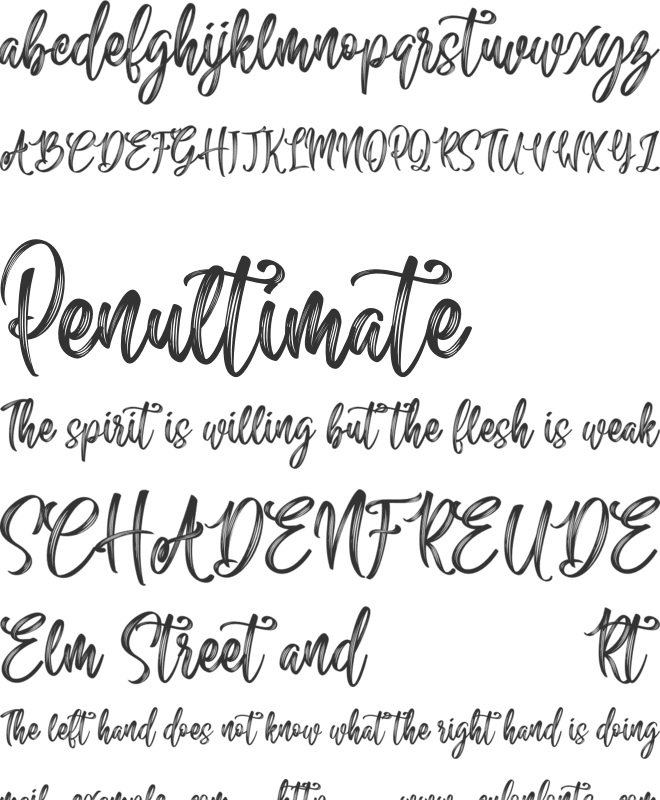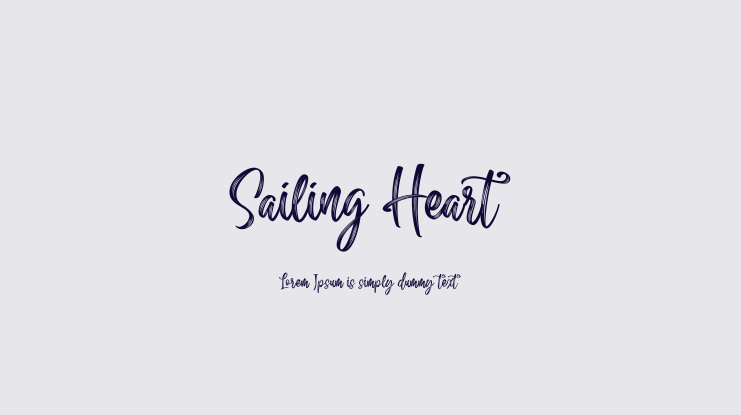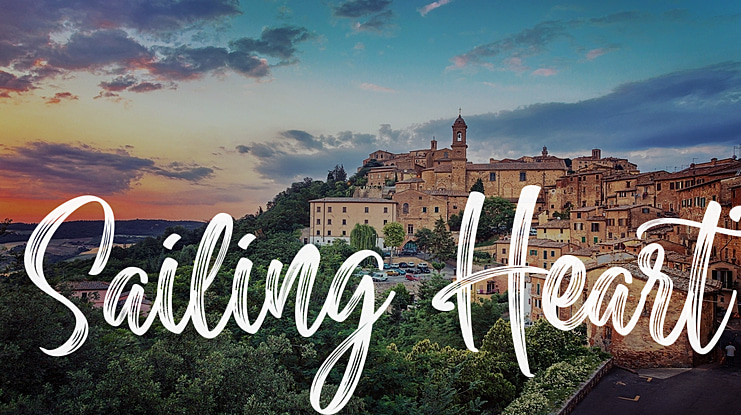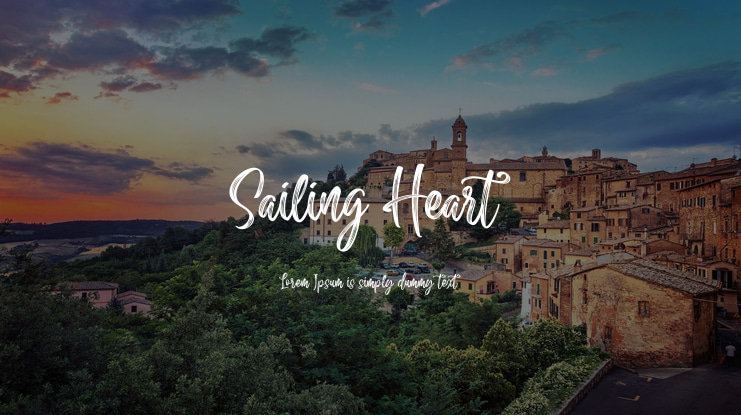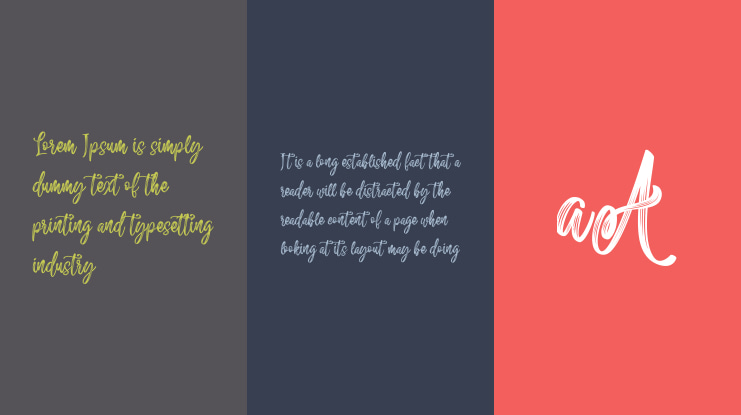
Sailing Heart Font
Donis Miftahudin
Say hello to Saling Heart Script...
Saling Heart is a beautiful script font, Made with naturally brush. Texture from the brush font will make your design more beautiful and powerful. This font is suitable for any design like branding, quotes, wedding invitation, lettering project and etc.